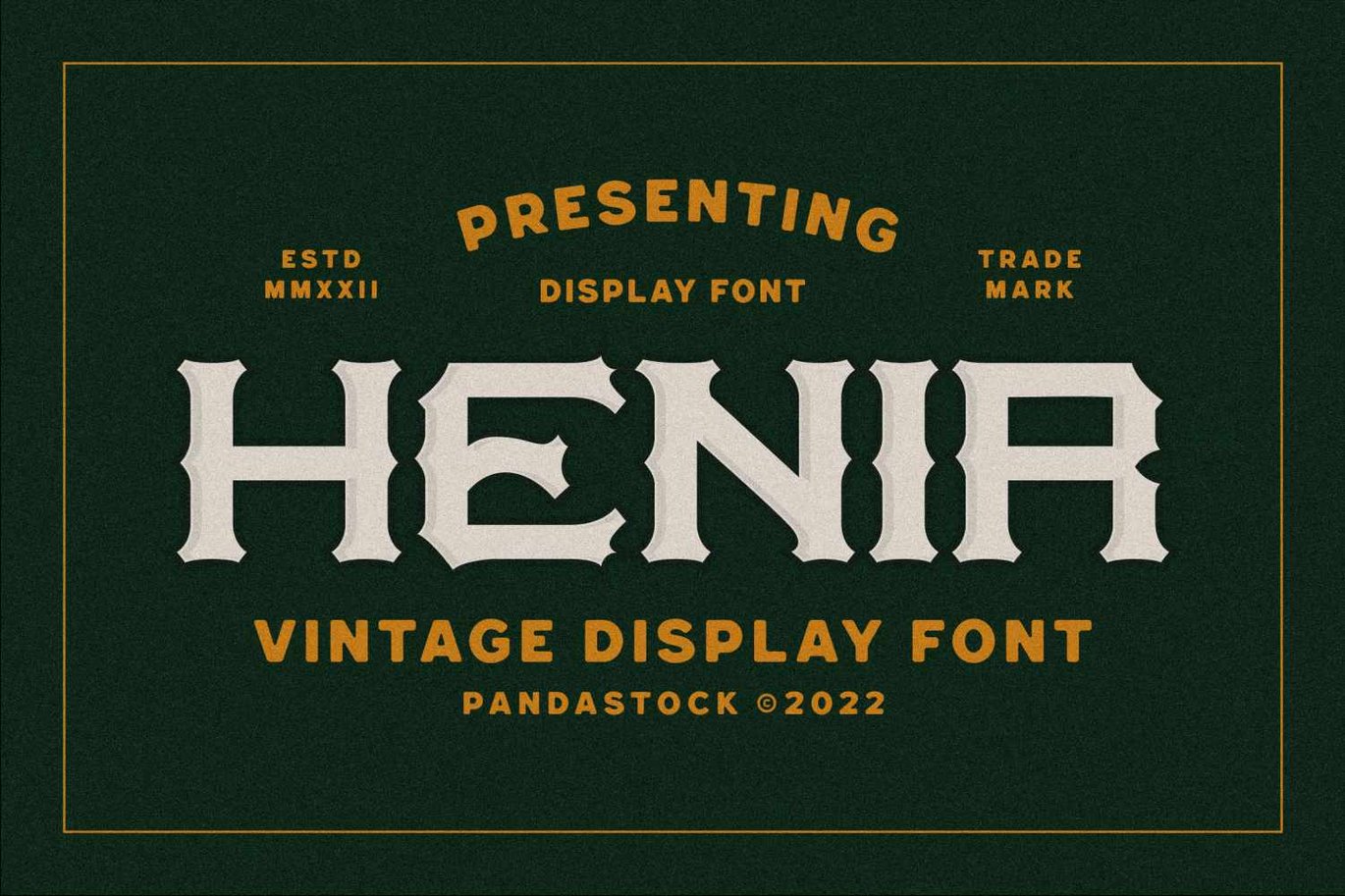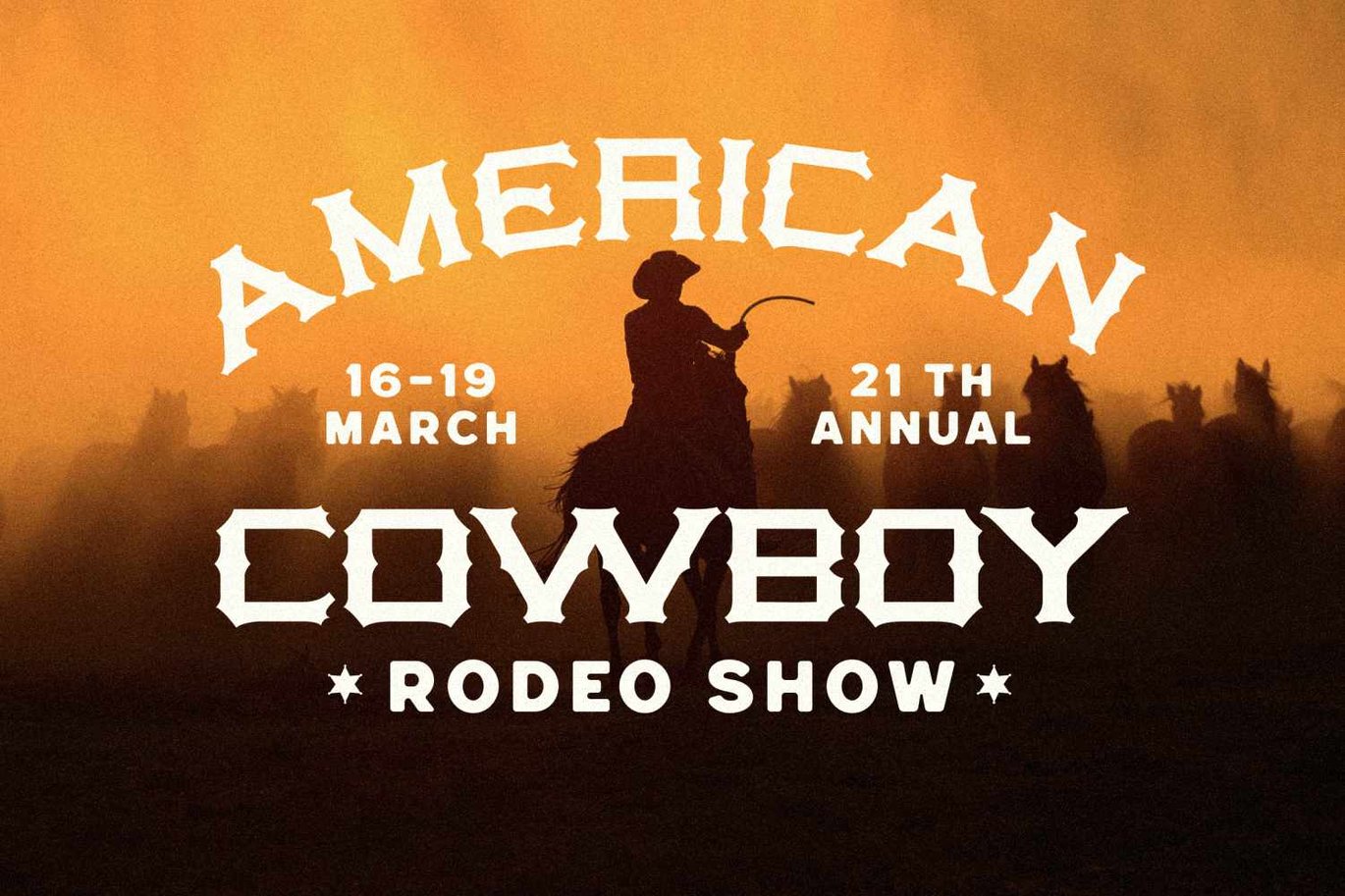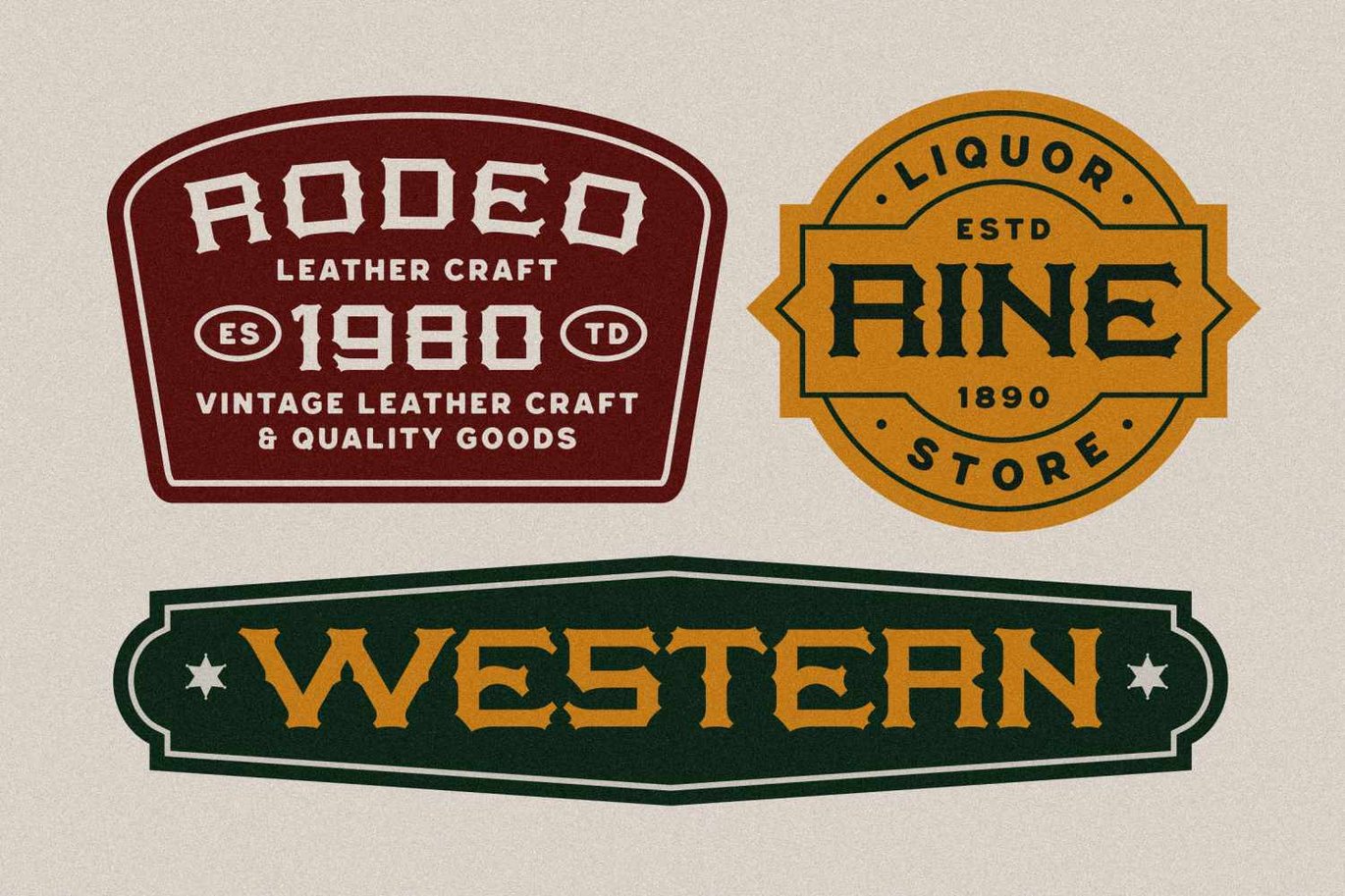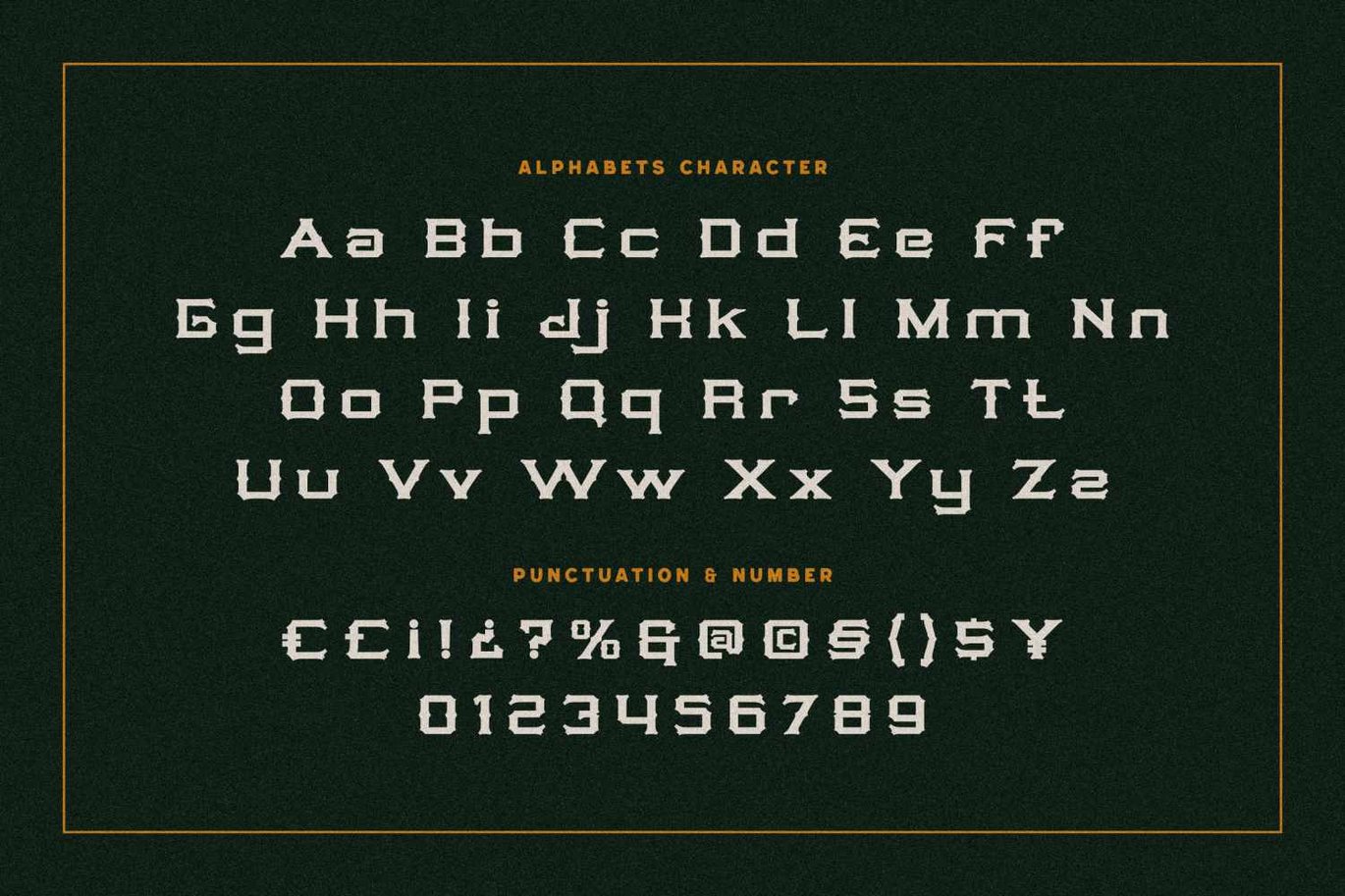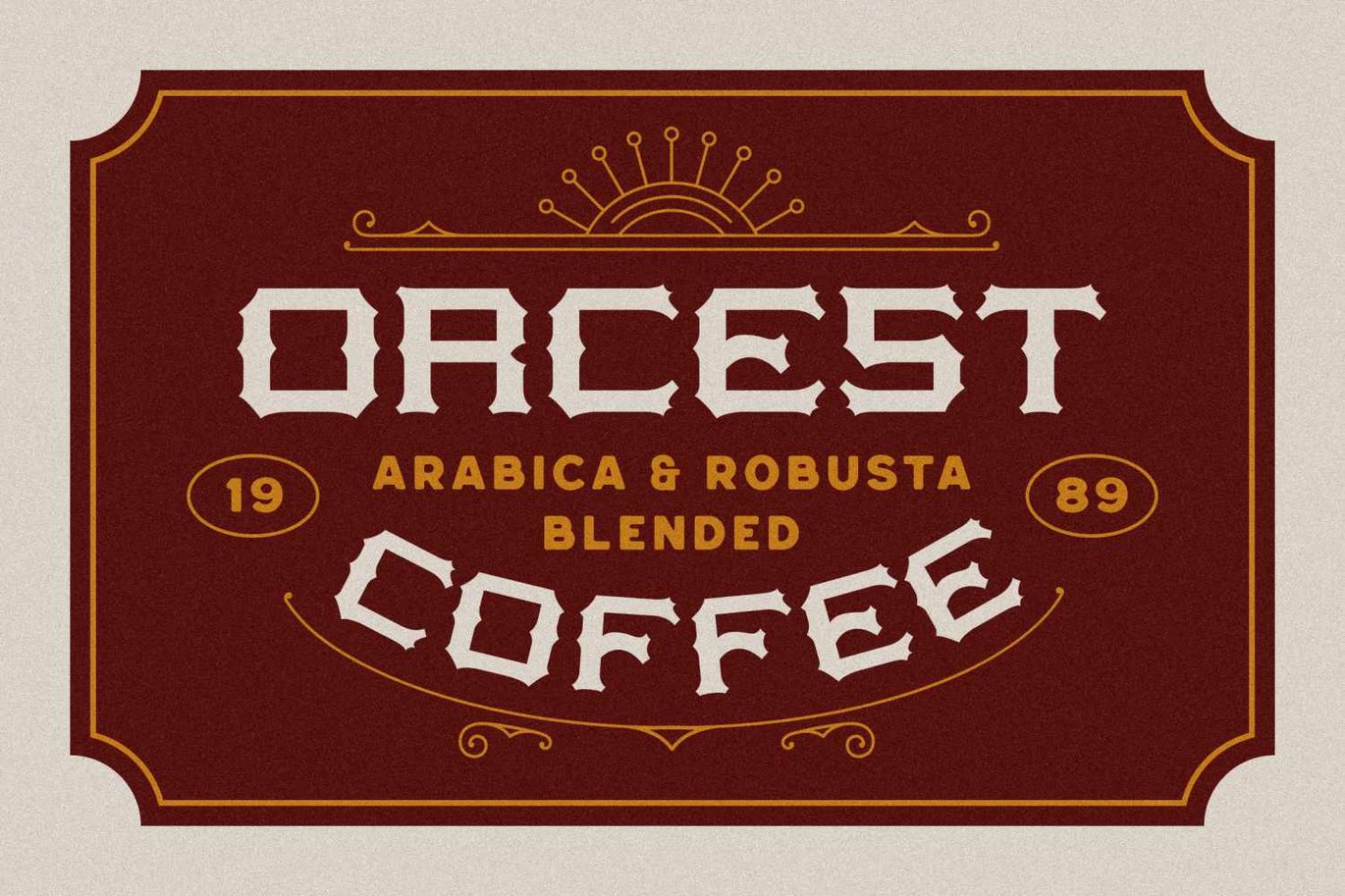
Henir – Western Cowboy Font
Introducing “Henir” a western cowboy font. Designed well and inspired by cowboy, rodeo, texas, and vintage designs. Infusing a sense of class and contemporary sophistication. Its graceful lines and modern aesthetic make it the perfect choice for projects seeking a balance of elegance and modernity and smooth curves every lettering a can embodies charm in, making your work look stunning and attractive.
Suitable works in both uppercase and lowercase sizes, suitable for a wide variety of projects such as a display font for headings, logo fonts, invitations, branding, book covers, magazine layouts, wedding, product packaging, product mockup, signature, posters, labels, editorials, art deco, and any type of advertising purpose.